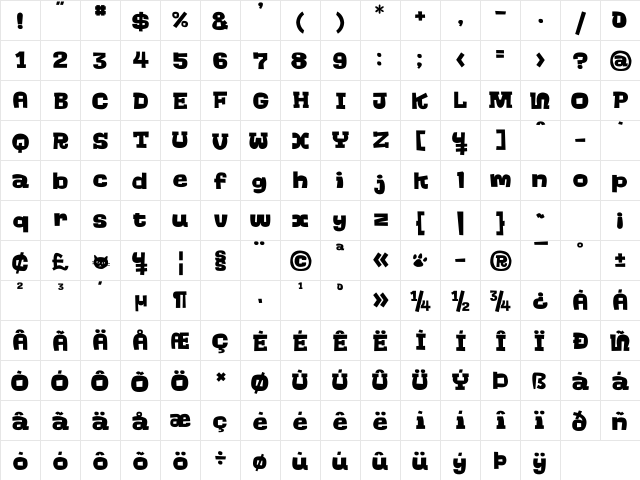
Go-Go-Go Regular
| Foundry | COLORFUL TYPHOON |
| Designer | Futaba |
Design Context for Go-Go-Go Typeface
Go-Go-Go offers clean, dependable letterforms without strong stylistic allegiance, making it a practical choice for designers who need flexibility.